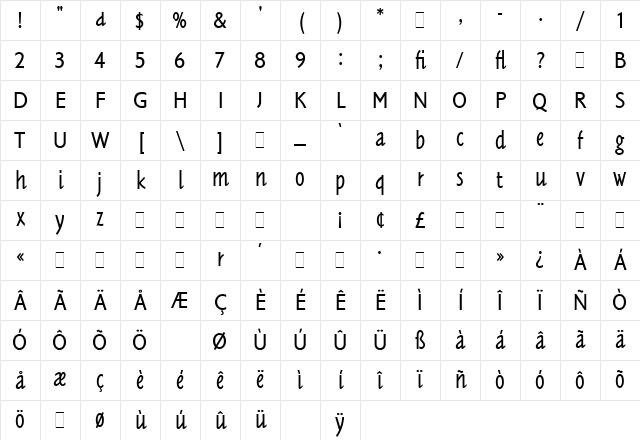
Complete Tannhauser LET Plain glyph index. Displaying only characters natively supported by Tannhauser LET Plain font.
Tannhauser LET is a composed and adaptable typeface that performs quietly and consistently across a wide range of design contexts.